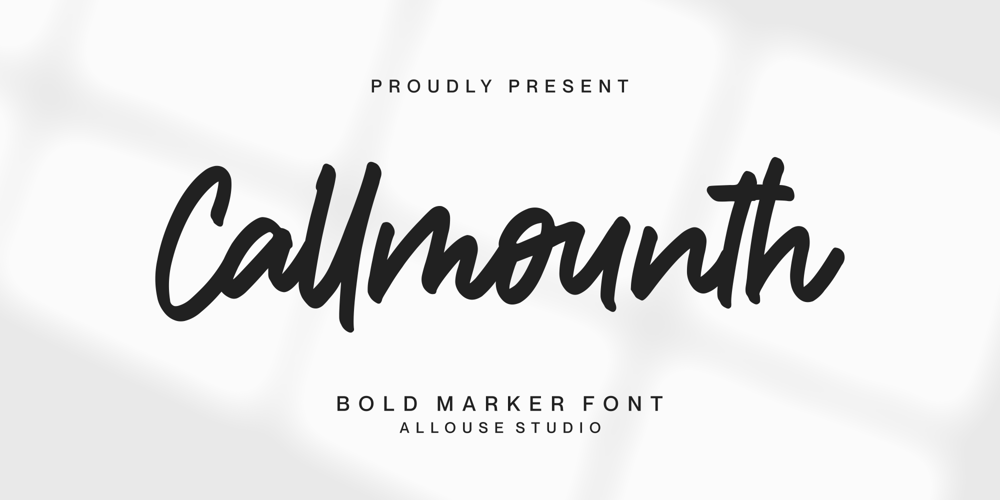
Callmounth Font Family was designed by Fachrizal Yusuf and published by Allouse Studio. Callmounth contains 1 styles and family package options. Proudly Present, Callmounth a Bold Marker FontCallmounth is perfect for any titles, logo, product packaging, branding project, megazine, social media, wedding, or just used to express words above the background.Callmounth also come with Multi-Lingual Support.Enjoy the font, feel free to comment or feedback, send me PM or email. Thank You!